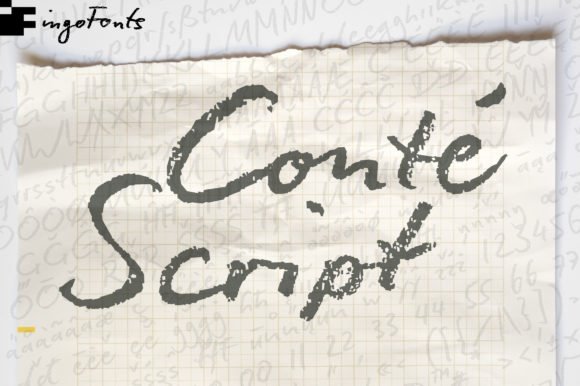
Introduction to Conté Script Plus Font
Conté Script Plus is an incredibly authentic handwritten font with a lovely feel.
Get inspired by its beautiful characters, and turn any design project into a stand out .
Key Features of Conté Script Plus Font